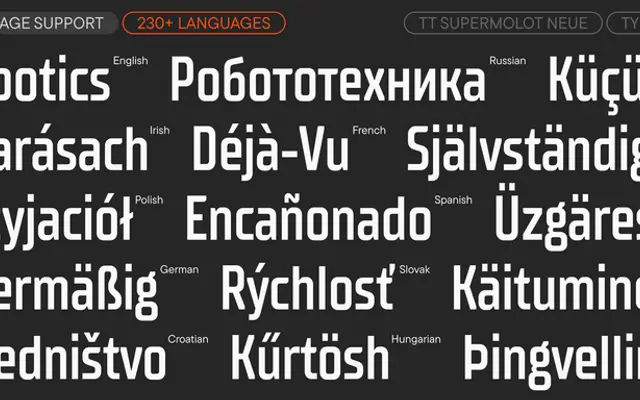
TT Supermolot Neue
TypeType · 2013
A modular geometric sans with squared forms and cut corners, built for video game interfaces and tech branding across 91 styles.
Originally developed in 2013 from the free Molot typeface, TT Supermolot Neue has been expanded repeatedly into a 91-style family spanning five widths from Compressed to Extended, each with nine weights and italics. Its squared ovals, deliberate corner cuts and stepped junctions give it a mechanical character that reads well in gaming UI, automotive branding and high-tech identities. A variable font package is available alongside the full static collection, with OpenType features including circled figures, oldstyle numerals and localisation sets for Serbian, Bashkir and Chuvash.
A modular geometric sans with squared, angular forms and cut corners giving it a distinctly technical and futuristic character, placing it firmly in the geometric sans category with a display-leaning sensibility.